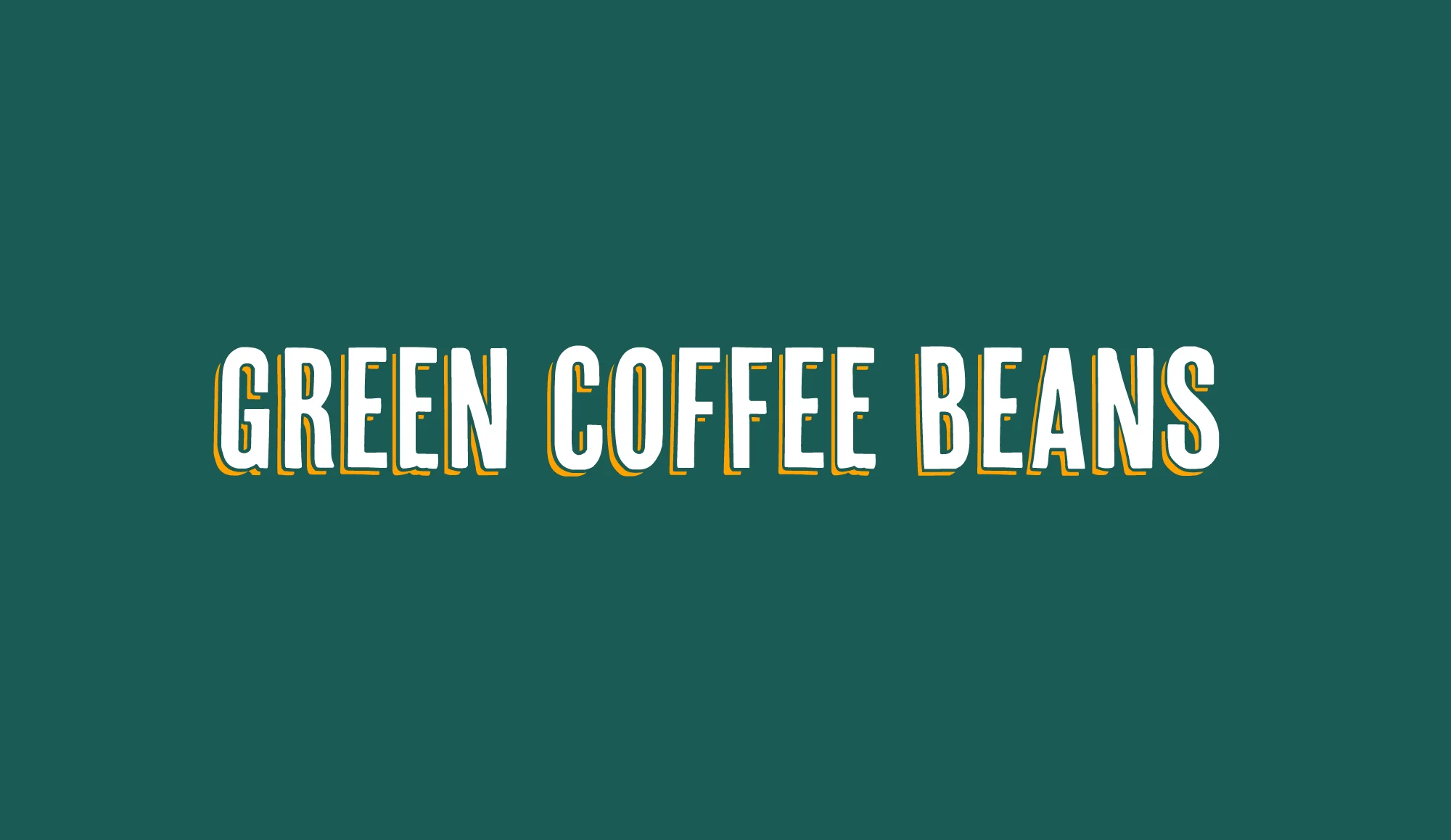
Cheap Pine
A display typeface from HvD Fonts with a characterful, decorative sensibility suited to headlines and poster work.
Cheap Pine is a display typeface from HvD Fonts designed for expressive, large-scale use. Its name suggests a vernacular, hand-crafted quality typical of retro or woodtype-inspired lettering. Full details could not be retrieved due to access restrictions on the foundry's site.
The name and foundry context suggest a characterful display serif or decorative typeface; without page content, category is inferred from available naming conventions at HvD Fonts.